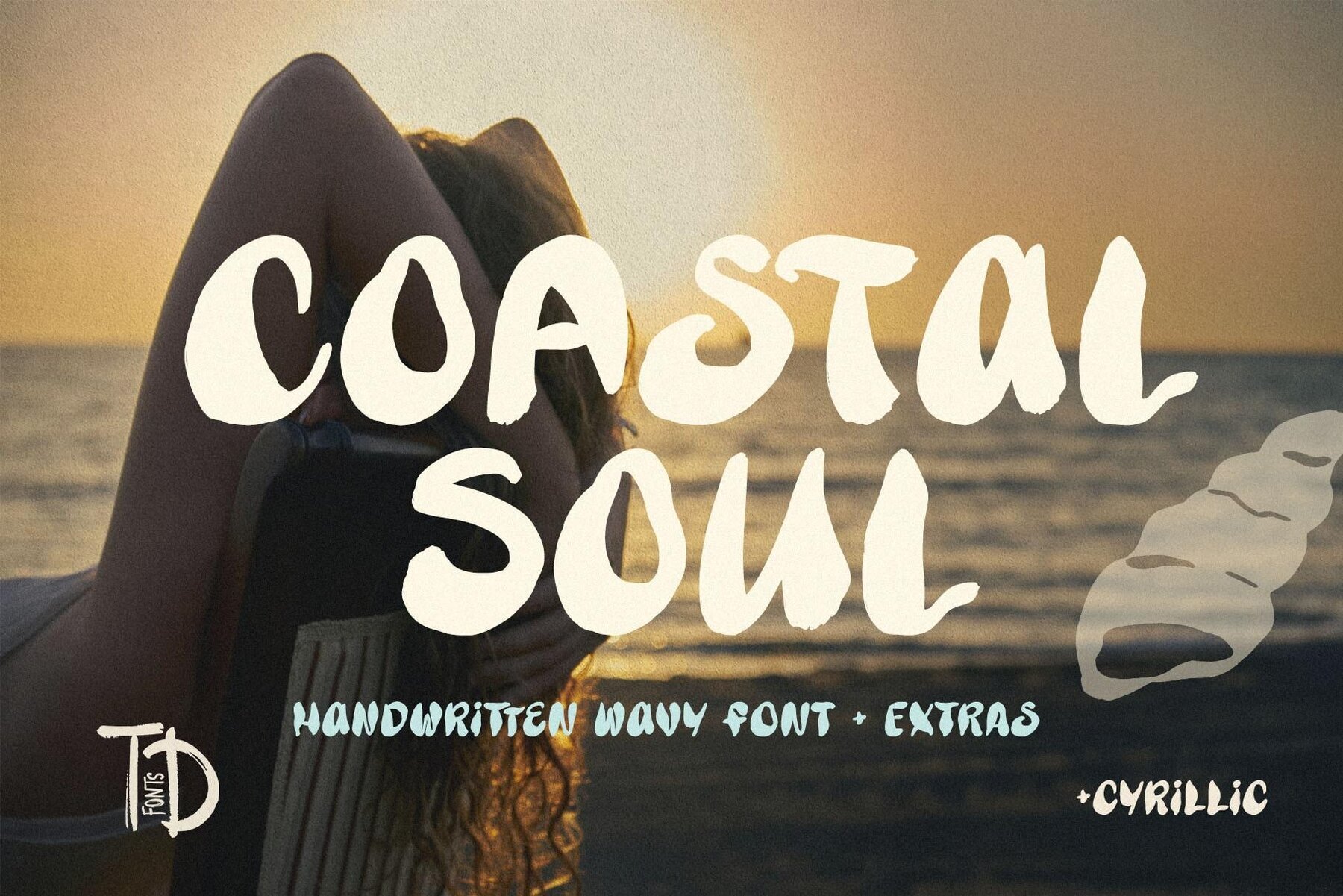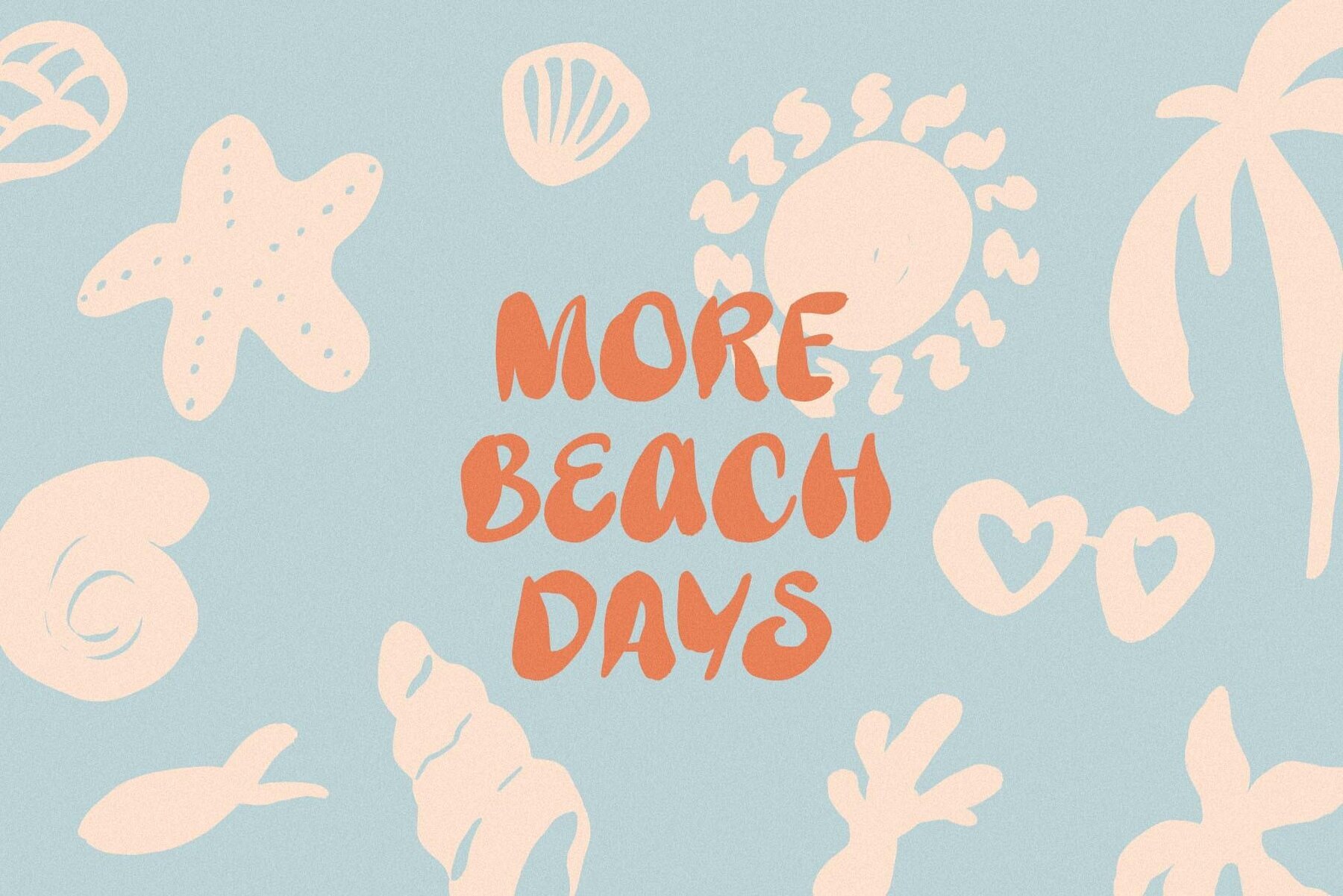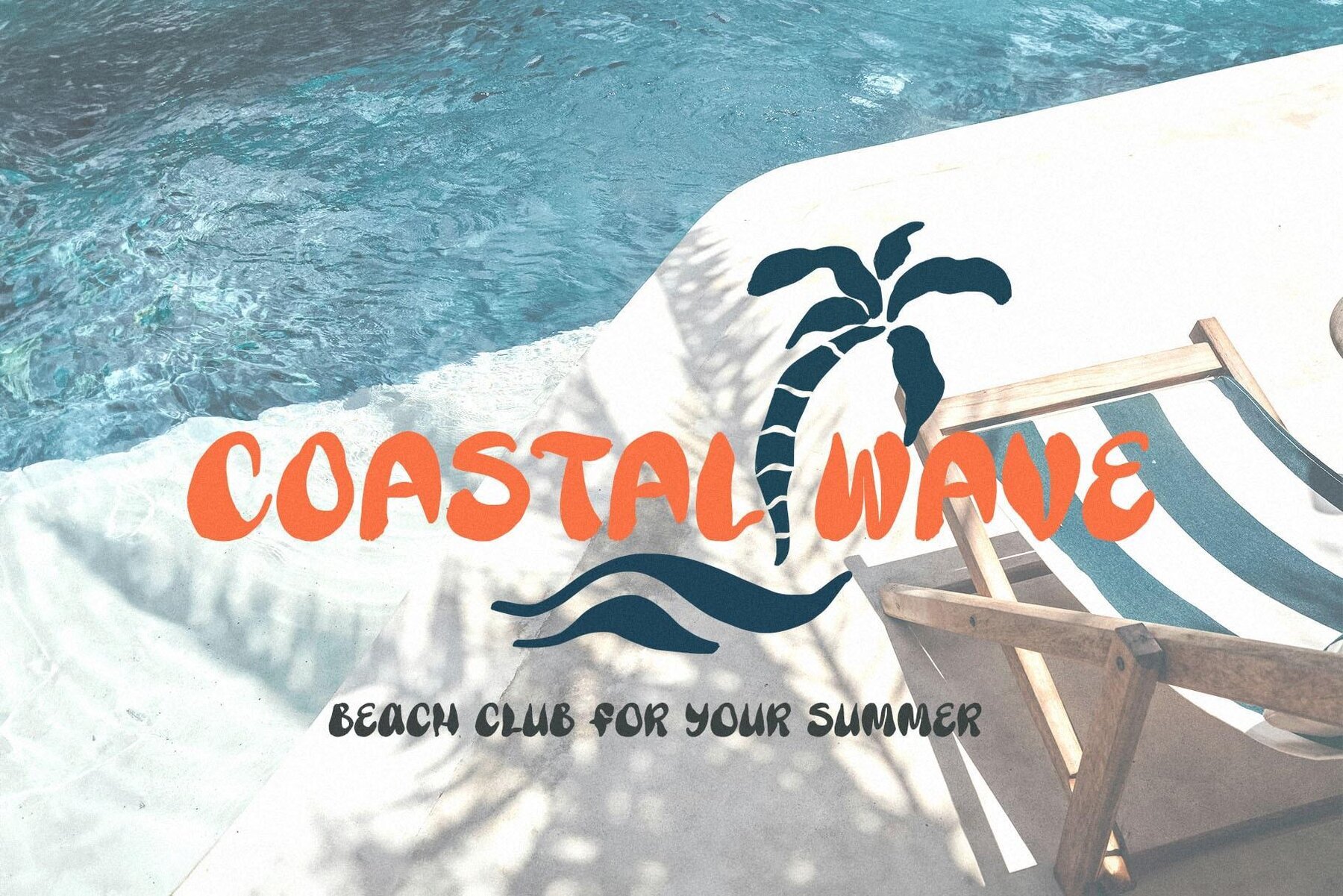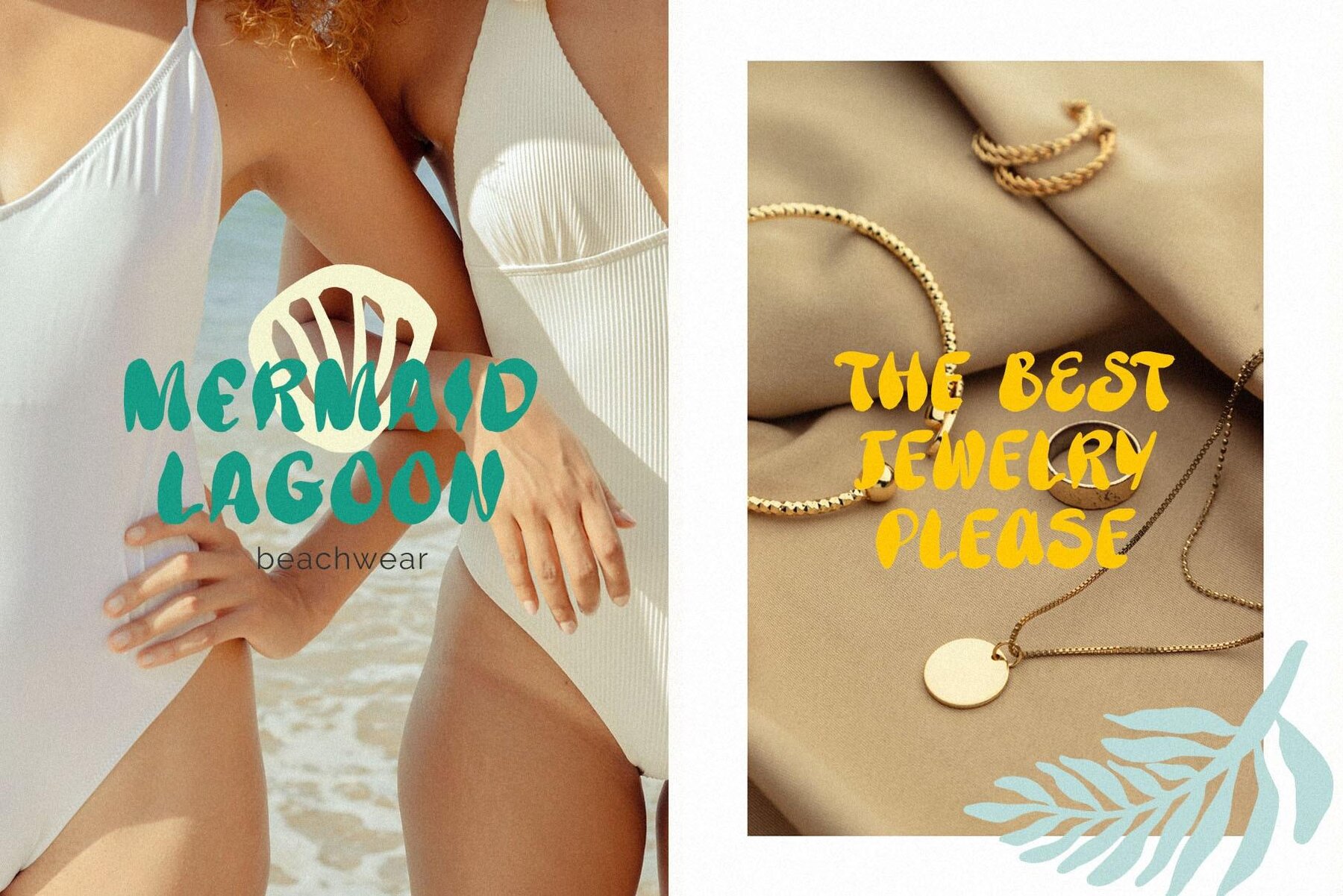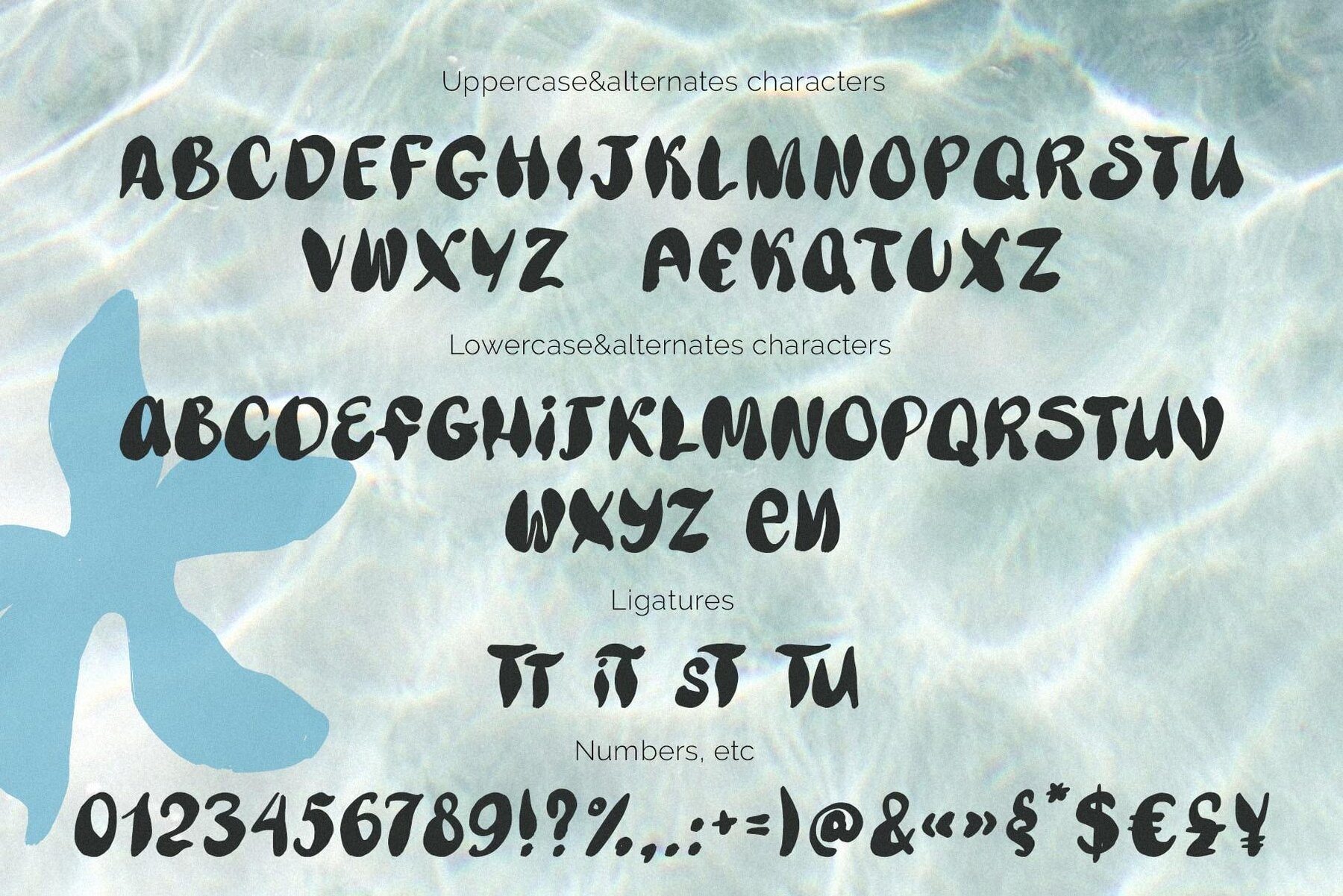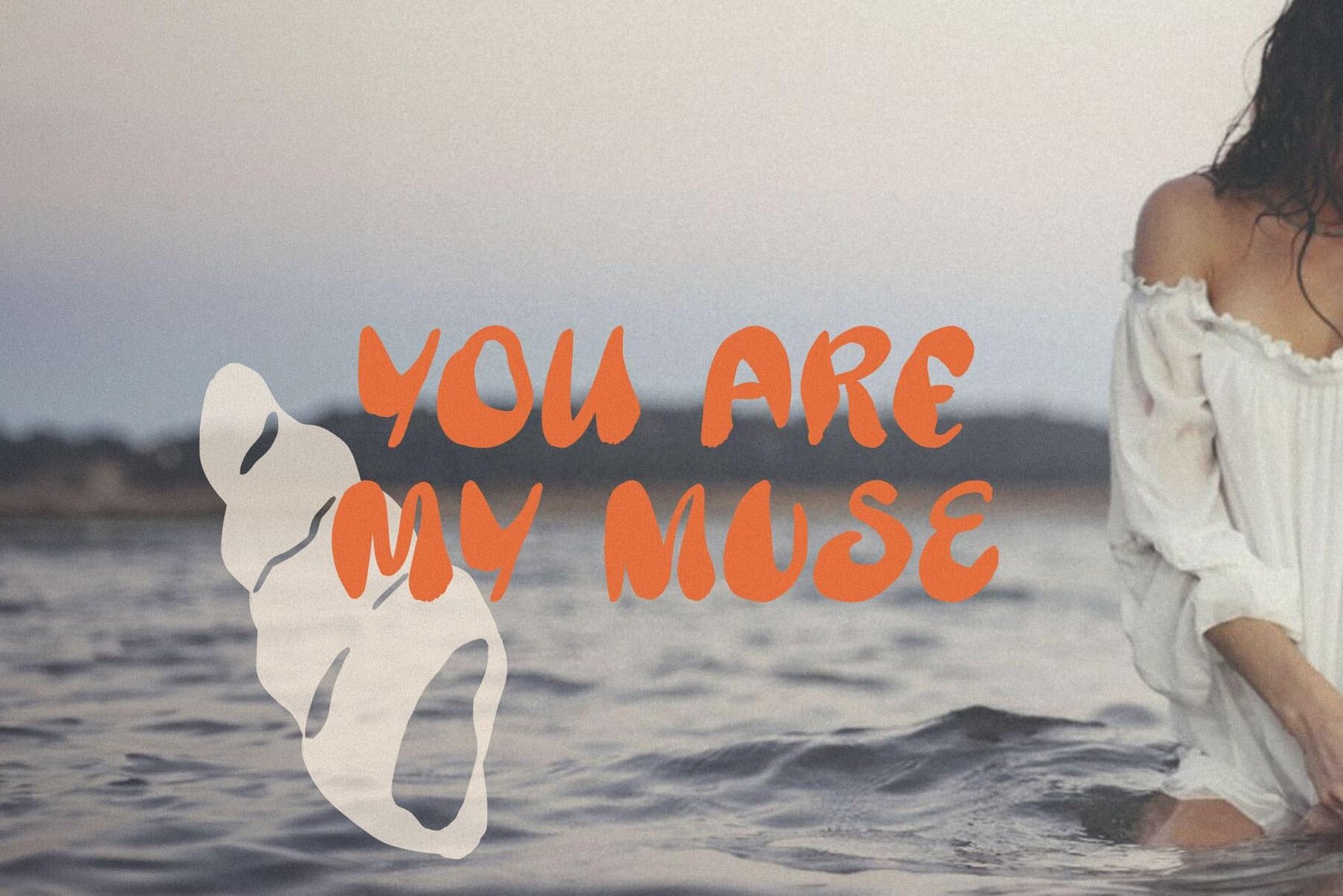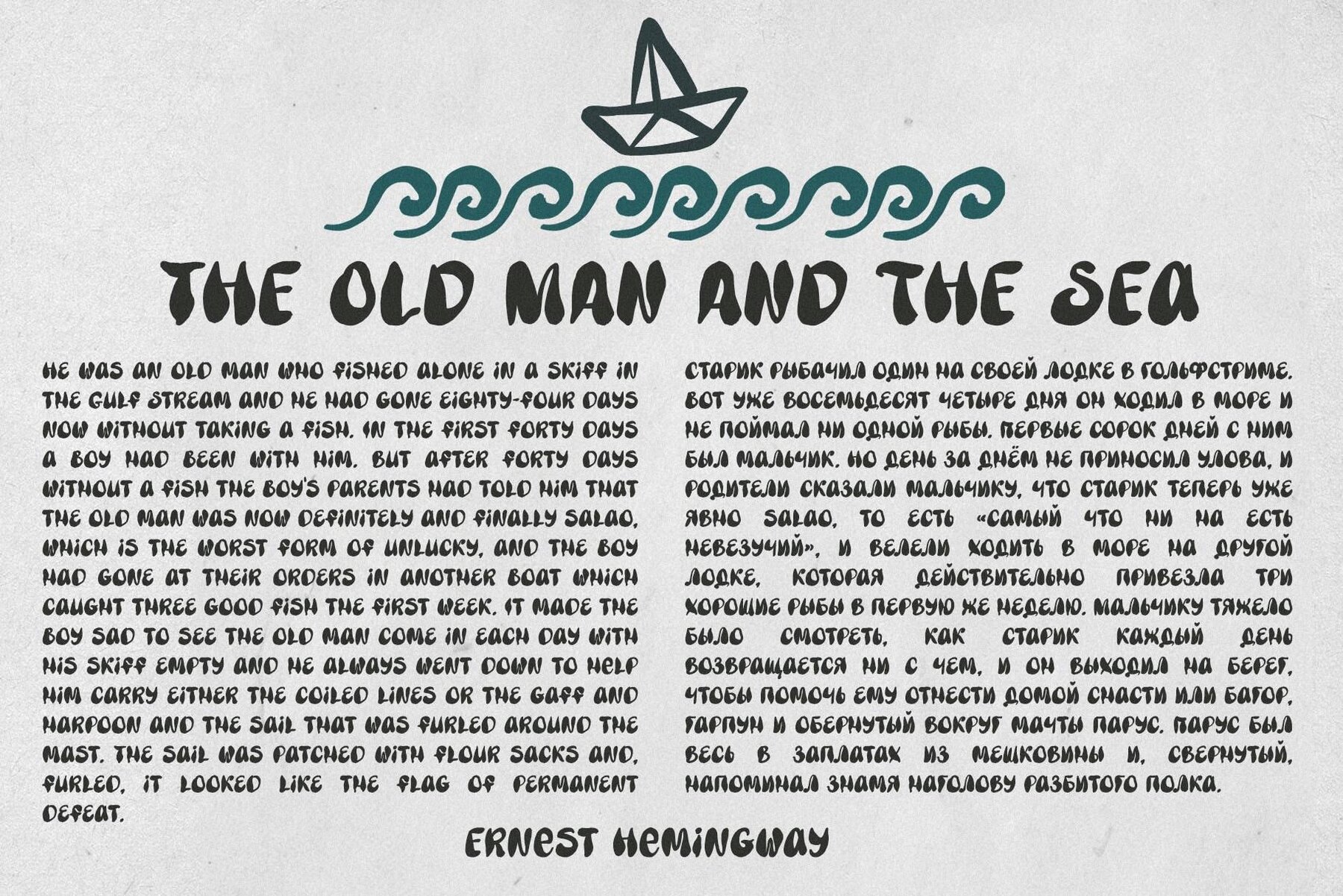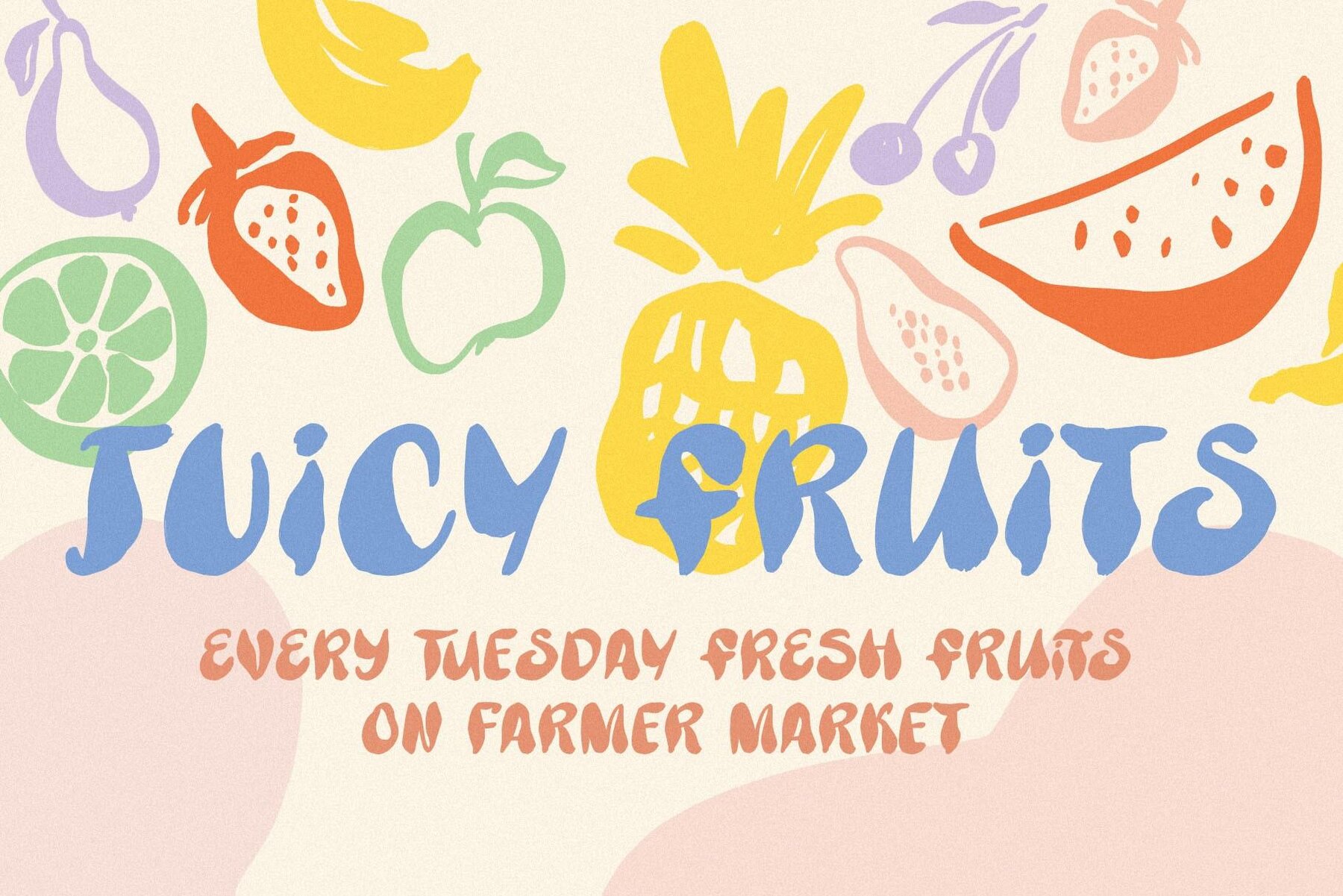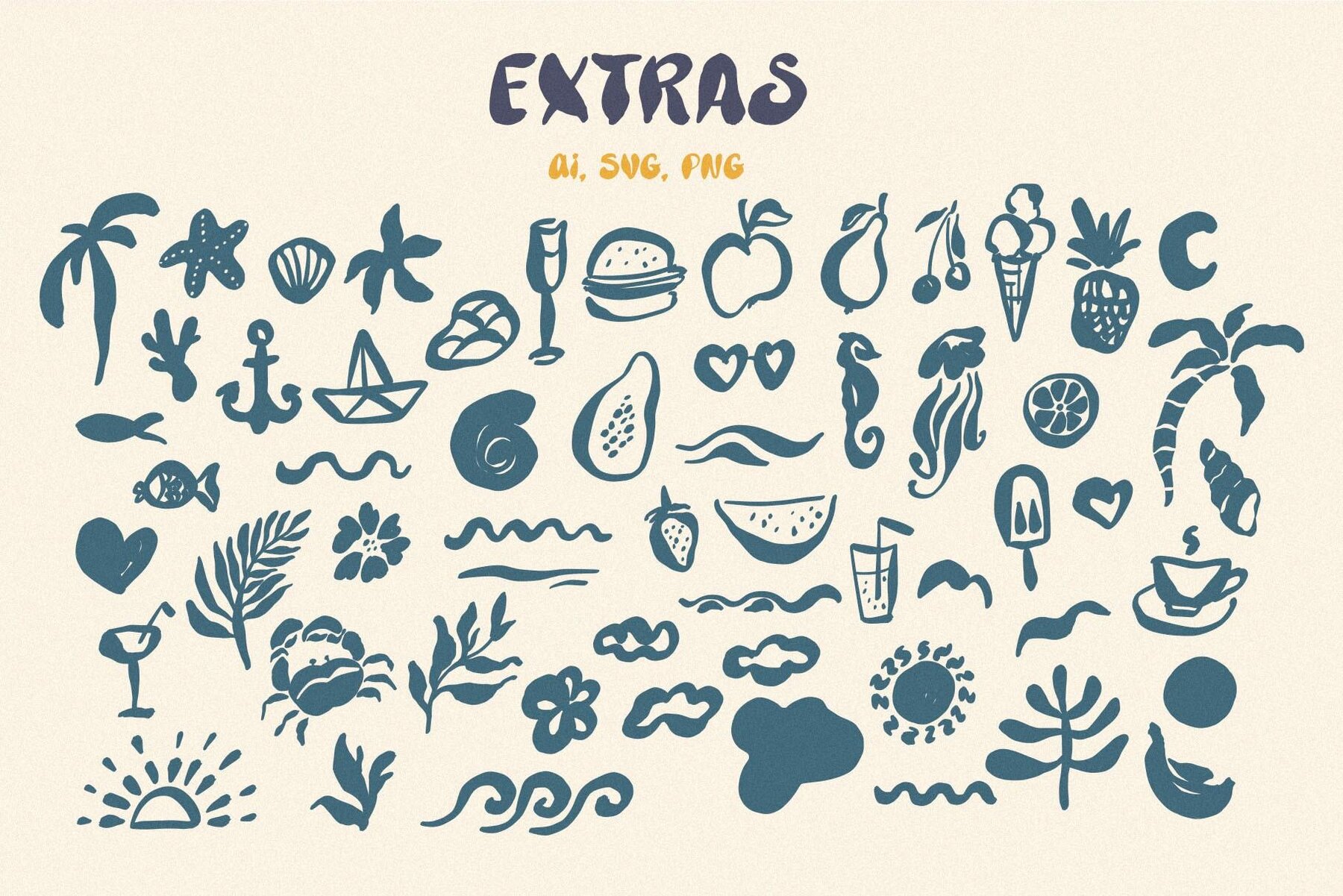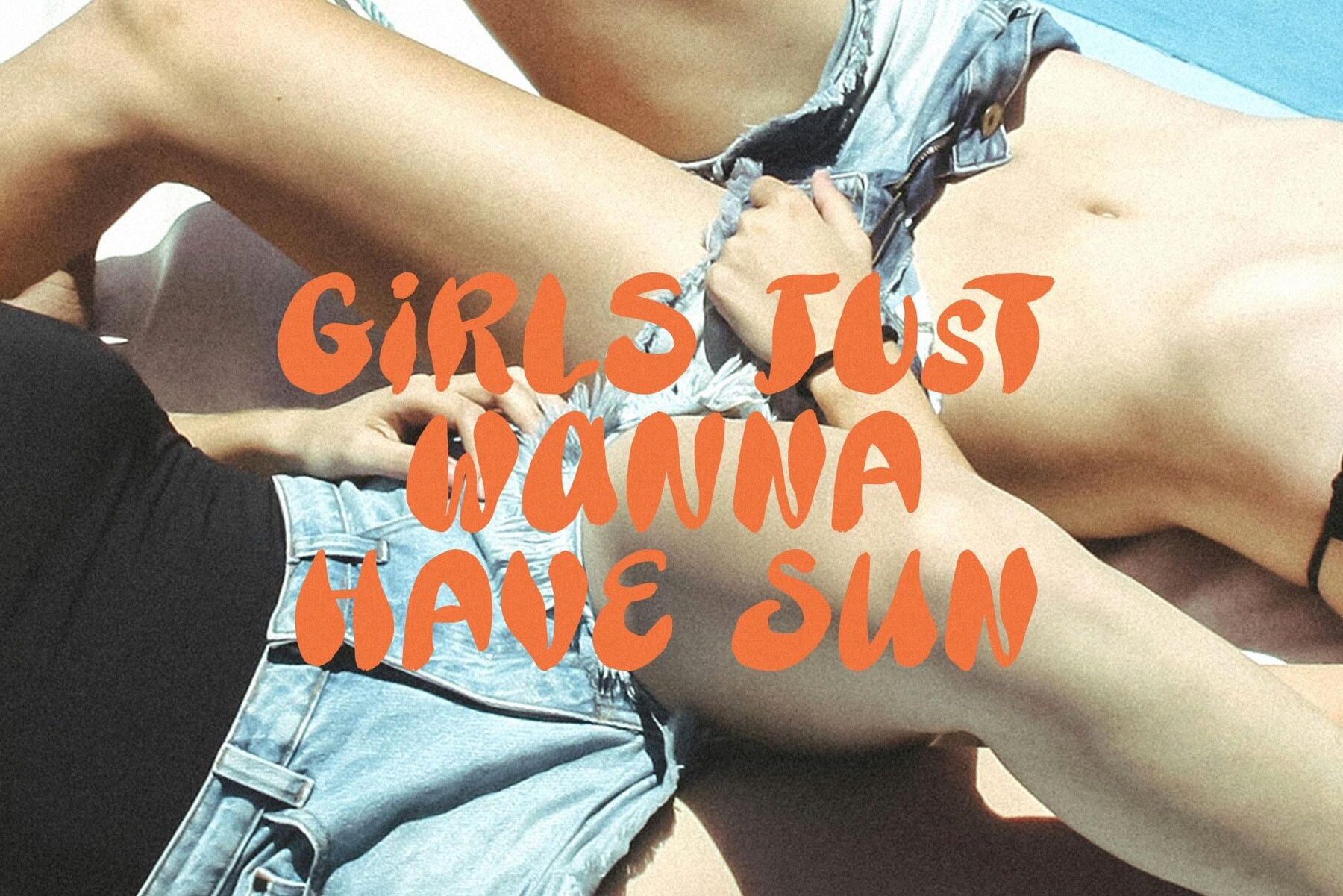
Coastal Soul Font
Embrace the vibrant charm of Coastal Soul Wavy Font, a playful handwritten typeface inspired by retro aesthetics and boho vibes, radiating sunny beach energy. Transform your designs with this groovy font and an exclusive set of hand-drawn bohemian icons featuring nautical, floral, food, and beverage illustrations. Infuse your projects with a touch of sunshine, beachy vibes, and seaside bliss. With its smooth curves and versatile letterforms, Coastal Soul adapts effortlessly to any creative endeavor, from social media quotes to elegant packaging. Dive into a world of summer charm and let your designs flourish.Coastal Soul Wavy Font